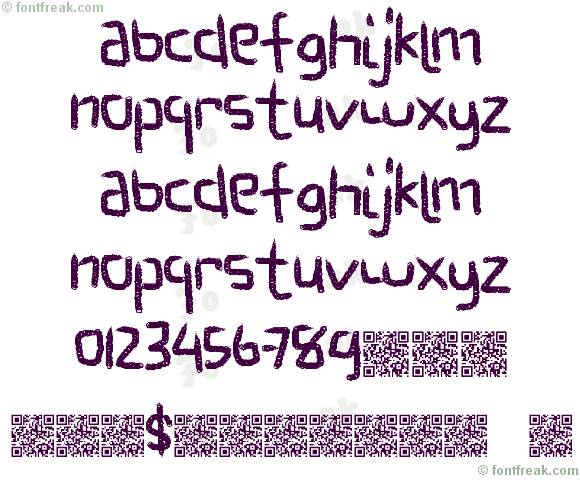
FantasticHabits
About FantasticHabits
FantasticHabits by XEROGRAPHER FONTS is a captivating display font that embodies a playful and artistic flair, making it a versatile choice for a variety of creative projects. This font features a unique handwritten style, characterized by irregular stroke weights and a charmingly imperfect aesthetic. The letters have a distinct, slightly rough texture that adds character and warmth, while the spacing between the characters is thoughtfully designed to enhance readability without losing its whimsical appeal.
The best use cases for the FantasticHabits font include wedding invitations, where its informal elegance can set a joyful tone, and movie posters, where it can convey a sense of creativity and fun. It also shines in restaurant menus, particularly for casual dining establishments looking to create a welcoming atmosphere. Additionally, this font is ideal for branding materials aimed at small businesses and creative entrepreneurs, allowing them to showcase their unique personality and approach.
What sets the FantasticHabits font apart is its ability to blend playfulness with functionality. It captures attention while remaining easy to read, making it a standout choice for anyone looking to inject a bit of fun into their work. Whether you are crafting a heartfelt invitation or designing eye-catching promotional materials, the FantasticHabits font free download is a resource that will not disappoint. Embrace its unique charm and let your creativity flow.